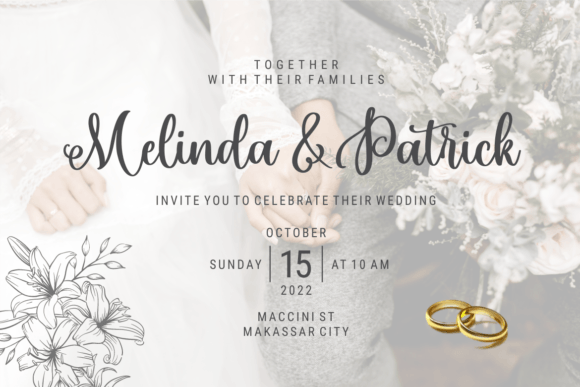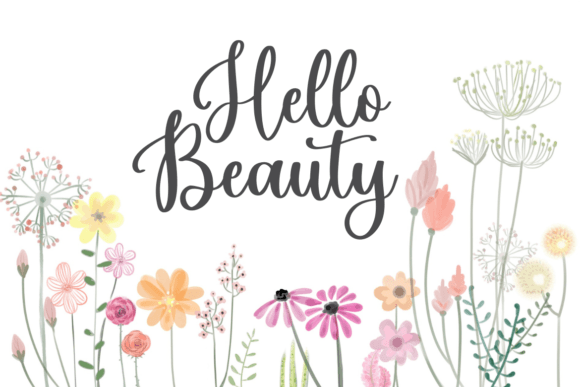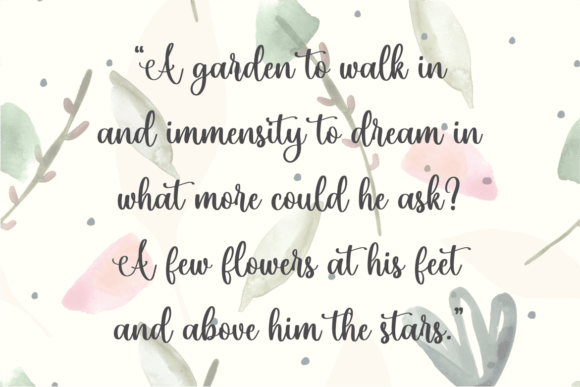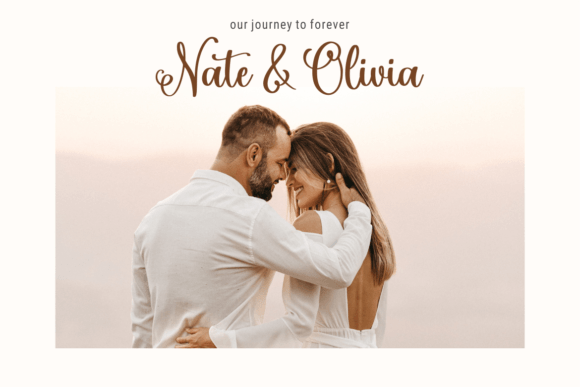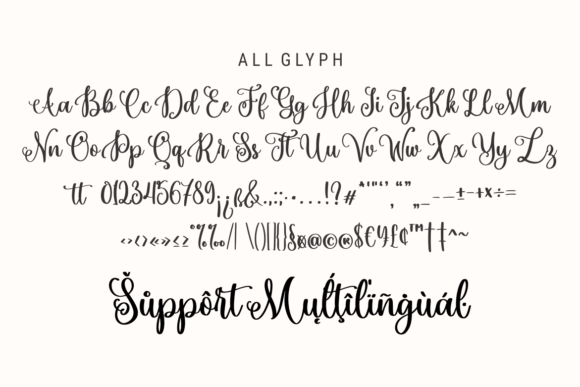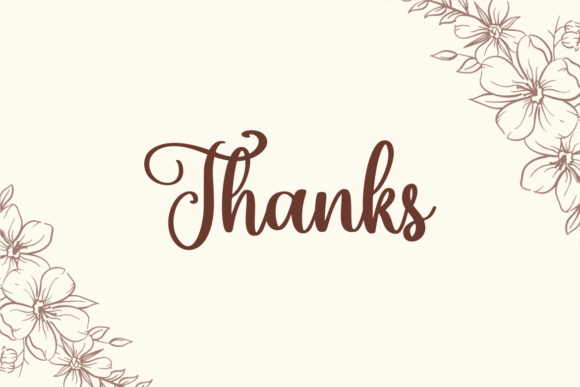
Introduction to Ametta Morningsta Font
Have you ever found yourself scribbling down a quote or a love letter in a beautiful handwritten script, only to wish you could make it look just as elegant on your next design project? That’s exactly what the Ametta Morningsta Font is here for – to bring a touch of romance and whimsy to your creative endeavors. This stunning script font is more than just a design resource; it’s a key to unlocking the perfect aesthetic for your next project.
Whether you’re a seasoned designer or a creative enthusiast looking for a free download to elevate your work, Ametta Morningsta Font is sure to impress. With its delicate strokes and elegant curves, this high-quality font is perfect for adding a personal touch to your designs, from greeting cards to headlines.
- With its elegant and modern design, Ametta Morningsta Font is perfect for creative projects, including logo design, branding, and typography-based art.
- Ametta Morningsta Font’s unique characteristics, including its flowing lines and organic shapes, make it an excellent choice for designers seeking a distinctive look for their creative project.
Honest Review: Ametta Morningsta Font
As a designer, I’m always on the lookout for high-quality design resources that can elevate my creative projects. The Ametta Morningsta Font is one such find that I’m excited to share with you.
- Beautiful, elegant script style that adds a touch of sophistication to any design.
- Includes a variety of characters, including uppercase and lowercase letters, numbers, and punctuation marks.
- Only available in a single weight, which may limit its versatility in certain design applications.
- No bold or italic variations, which could be a drawback for designers who prefer a more dynamic look.
Overall, the Ametta Morningsta Font is a solid addition to any design library. Its elegant script style and transparent background make it an excellent choice for a variety of creative projects. While it may have some limitations, its free download and high quality make it a worthwhile investment for designers looking to elevate their work.